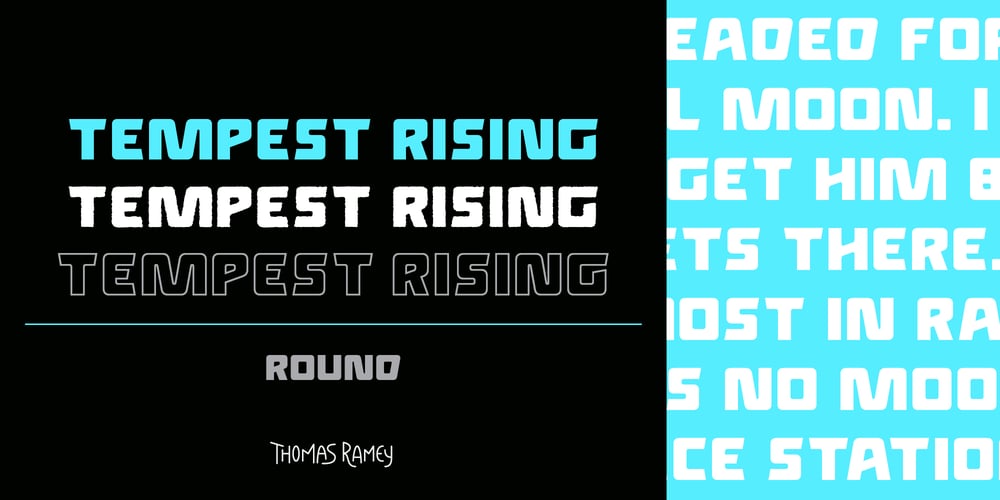
Tempest Rising Round
Tempest Rising Round font
Tempest Rising Round Font Family was designed by Thomas Ramey and published by Thomas Ramey Design. Tempest Rising Round contains 5 styles and family package options. Tempest Rising is a powerful rounded sans serif font that channels the energy of a storm brewing on the horizon. Its thick, bold glyphs create a sense of authority and strength, while its sharp angles and precise lines evoke a spirit of rebellion and defiance. Each character is meticulously designed with many alternatives to fit your purpose, making the font perfect for headlines, posters, branding, and anywhere a bold statement needs to be made.The typography is compact and dense, with condensed forms that allow for maximum use of space without sacrificing legibility. Its geometric foundation gives it a modern edge, while the sharp angles introduce a sense of urgency and momentum. The font’s architecture balances between brutal force and refined precision, making it versatile for both high-energy, dynamic designs and minimal, structured layouts.What truly sets Tempest Rising apart is its unyielding presence. It doesn’t just occupy space—it dominates it, bringing a sense of gravity and intensity to any project. Whether paired with vibrant colors for a striking, avant-garde look, or set against monochrome backdrops for a more dramatic, tension-filled composition, the font adapts effortlessly. Its bold strokes cut through the visual landscape like thunder, resonating with clarity and purpose.The subtle details—like the aggressive tapering of strokes and sharp corners—echo the sounds of revolution, the feeling of something immense stirring beneath the surface. There’s a sense of tension and release in its form, evoking a spirit of space adventure and exploration into the unknown. Tempest Rising is more than a font; it’s a declaration, a symbol of strength and change, a visual embodiment of power, courage, and momentum.